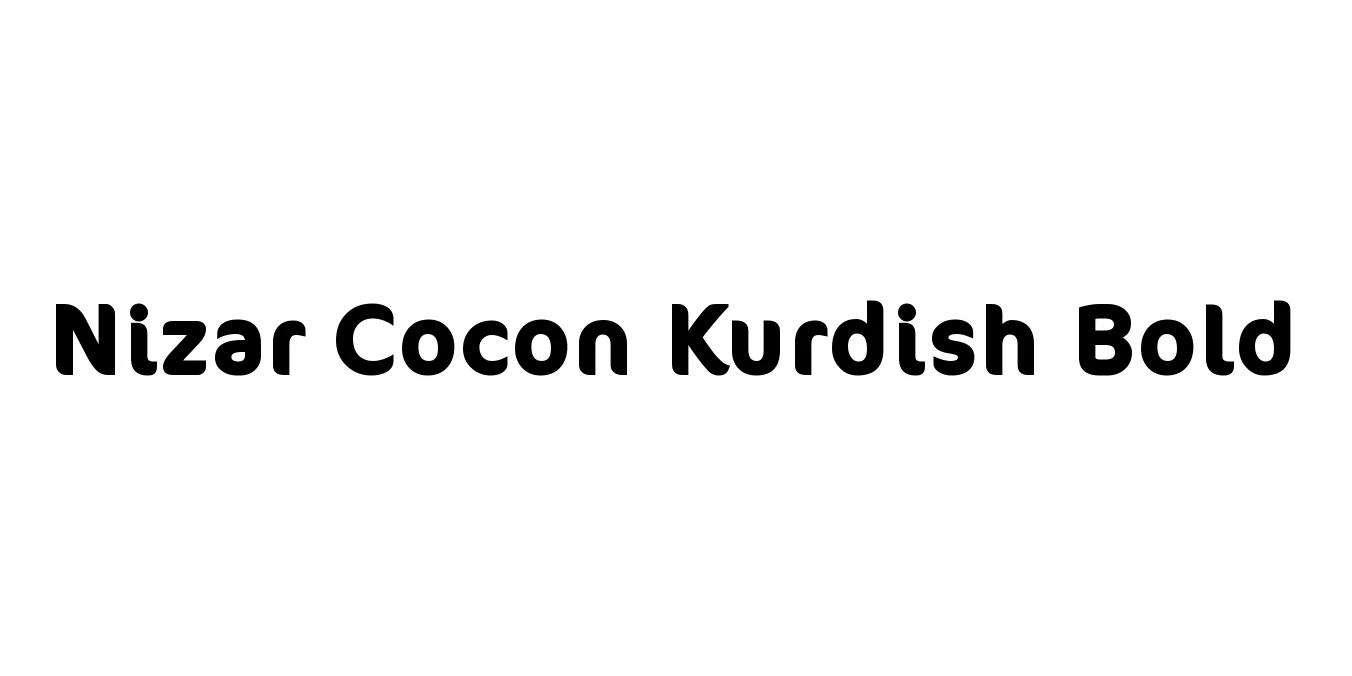
Nizar Cocon Kurdish Bold
Designed by Nizar Hammami
| Font Name | Nizar Cocon Kurdish |
| Category | Arabic/Kurdish Display |
| Designer | Nizar Hammami |
Nizar Cocon Kurdish Bold is a contemporary typeface specifically designed to bridge the gap between traditional Kurdish script and modern geometric design. As a bold variant of the popular Cocon family adaptation, it features soft, rounded terminals and a friendly, approachable aesthetic. This font is highly regarded in the Middle East for its exceptional legibility and its ability to maintain clarity even in dense typographic layouts.
Developed to support the unique linguistic requirements of the Kurdish language, this font has become a staple in broadcast media, advertising, and digital publishing. Its balanced proportions and distinct personality make it an ideal choice for brands looking to convey warmth and professionalism. The bold weight specifically excels in headlines and impactful visual communication where modern Arabic and Kurdish scripts are required.
Nizar Cocon Kurdish Bold Best Uses
Ideal for posters and flyers targeting Kurdish-speaking audiences.
Perfect for social media graphics and website headers.
Commonly used for on-screen lower-thirds and television titles.
Excellent for logo design and corporate identity in the Middle East.